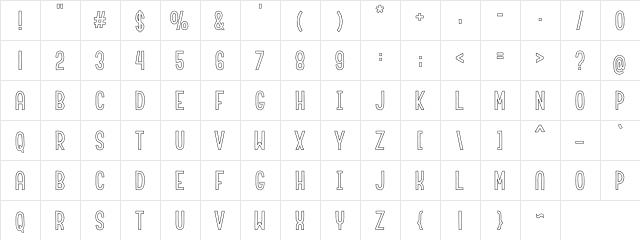
Roundabout Outline Regular
Design Context for Roundabout Outline Typeface
Roundabout Outline is built around its visual character rather than neutral utility — its distinctive forms are designed to make an impression at display sizes.
Font Pairing: Pair with a clean neutral sans-serif for body copy to let Roundabout Outline's character lead without overwhelming the composition.
Pro Tip: Treat Roundabout Outline as the centrepiece of your typographic hierarchy. One strong heading set in a decorative face can carry an entire layout.